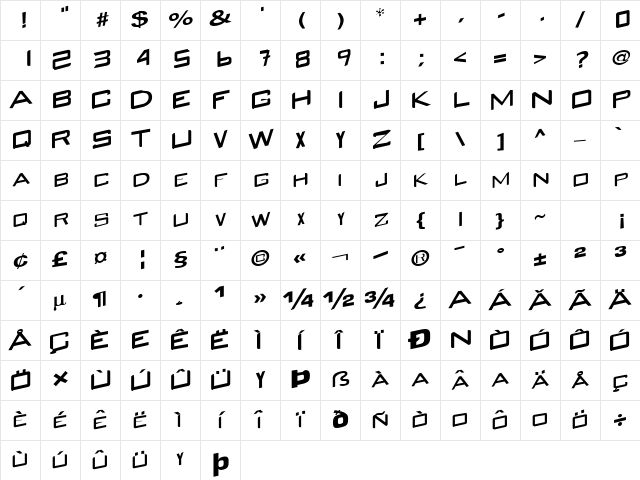
Gray Regular
Gray Family
Gray Regular
Design Context for Gray
Gray is a composed and adaptable typeface that performs quietly and consistently across a wide range of design contexts.